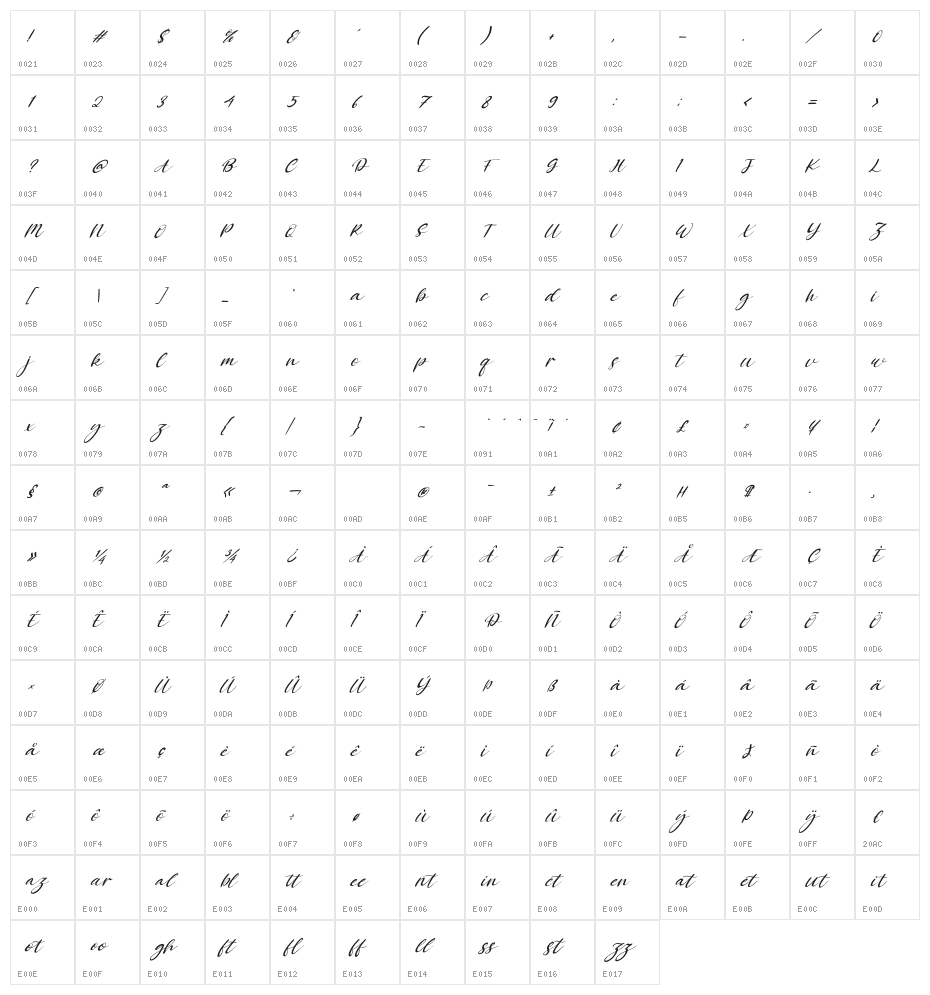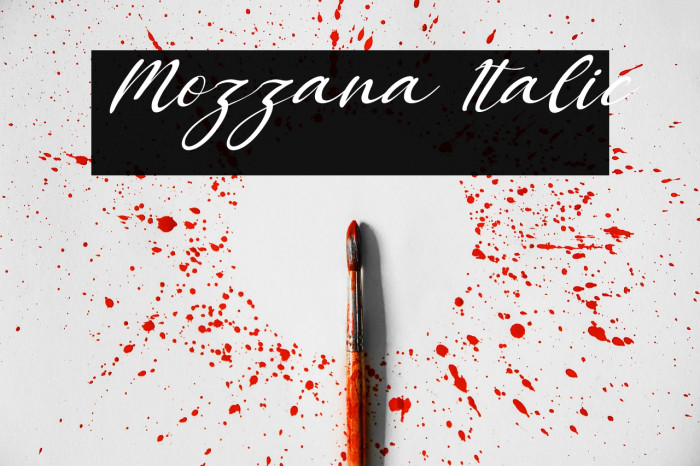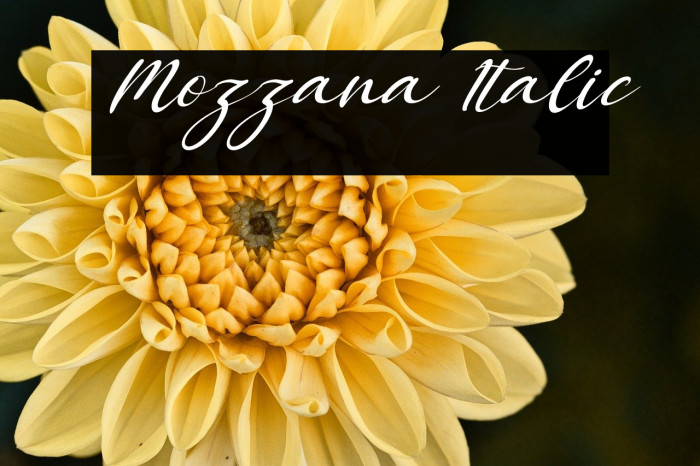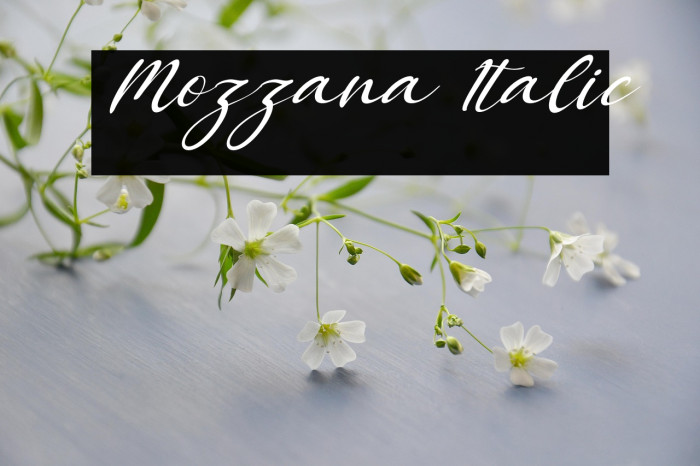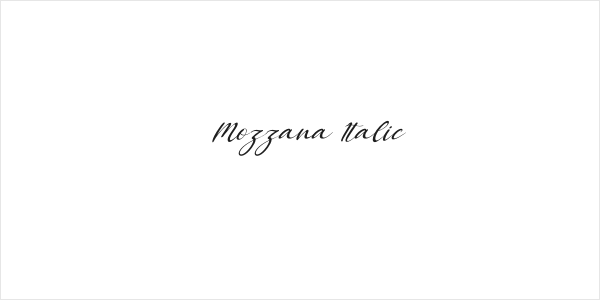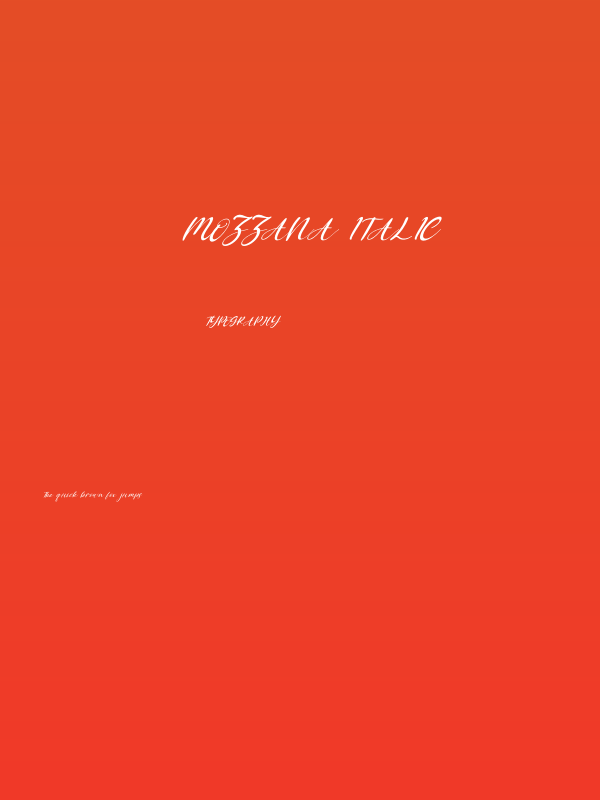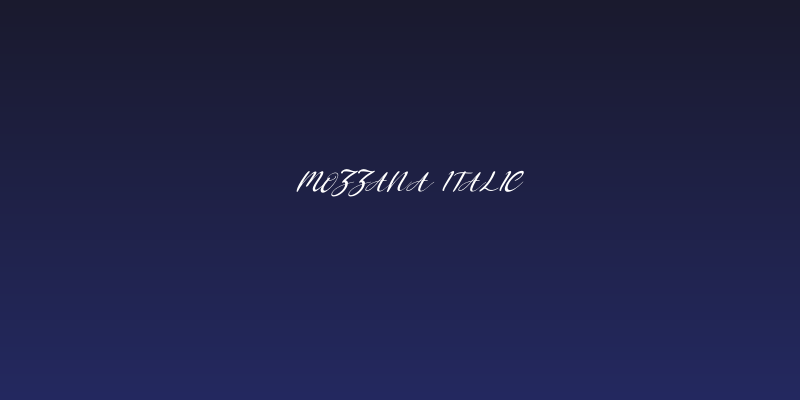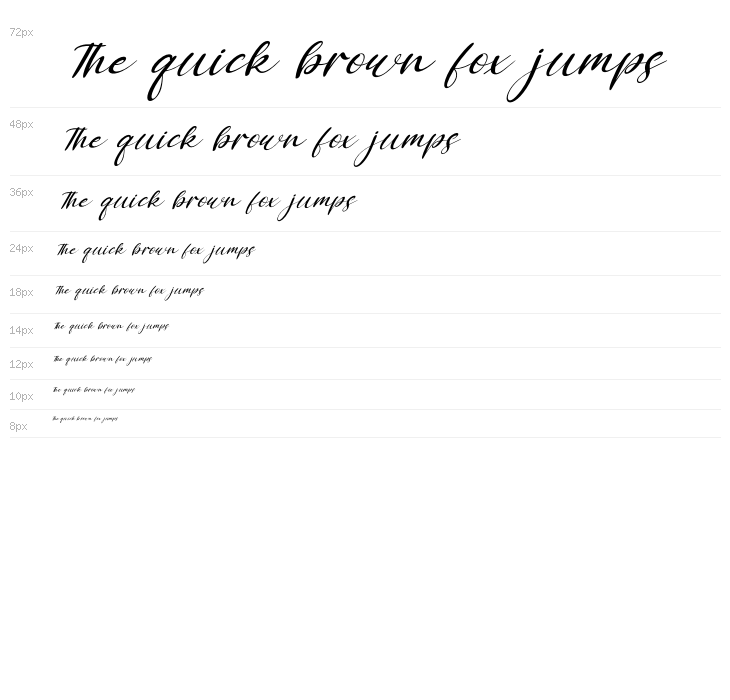
Mozzana Italic Font
Mozzana Italic Description
This elegant script font features fluid, cursive strokes that convey a sense of sophistication and grace. The letters are interconnected, with smooth transitions between each character, giving it a handwritten appearance. The uppercase letters are slightly more ornate, with flourishes that add a touch of flair, while the lowercase letters maintain a consistent flow. The numerals and special characters are designed to match the overall style, ensuring a cohesive look. This font is ideal for projects that require a personal touch or a sense of elegance.